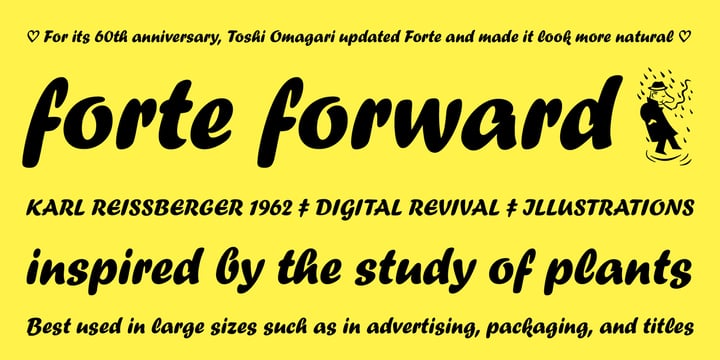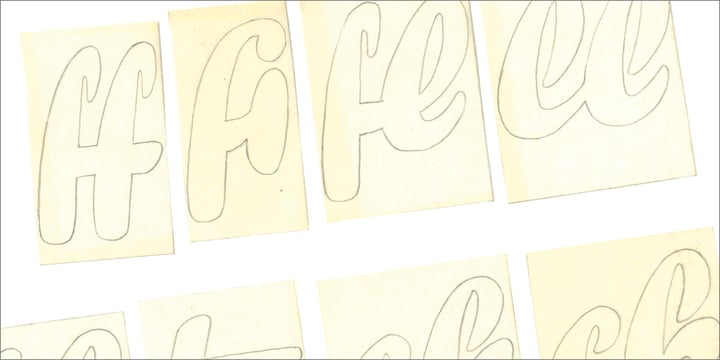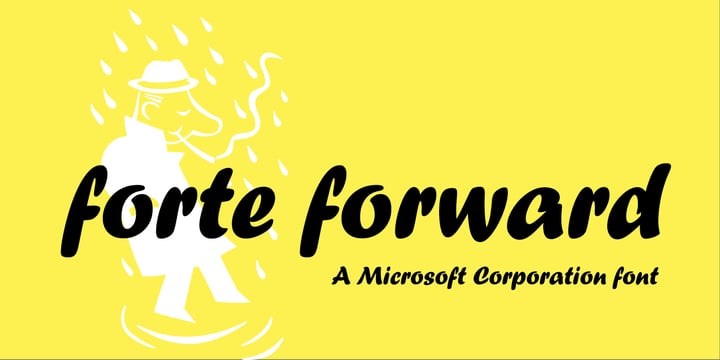
Carl Reissberger
Designer Carl Reissberger created the font in 1962.
The font Forte is a bold display script that has no connections between the letters of the lowercase alphabet. Slightly inclined, it gives the impression of having been made with a bold brush or marker, and can therefore be used in work that requires an informal appearance.